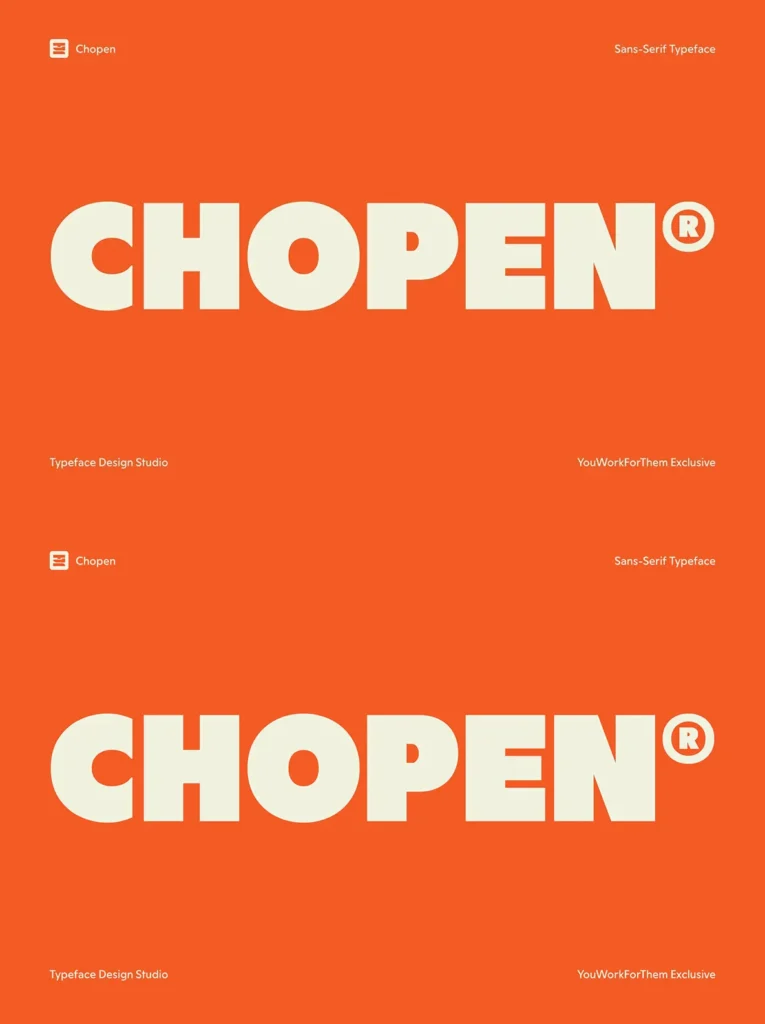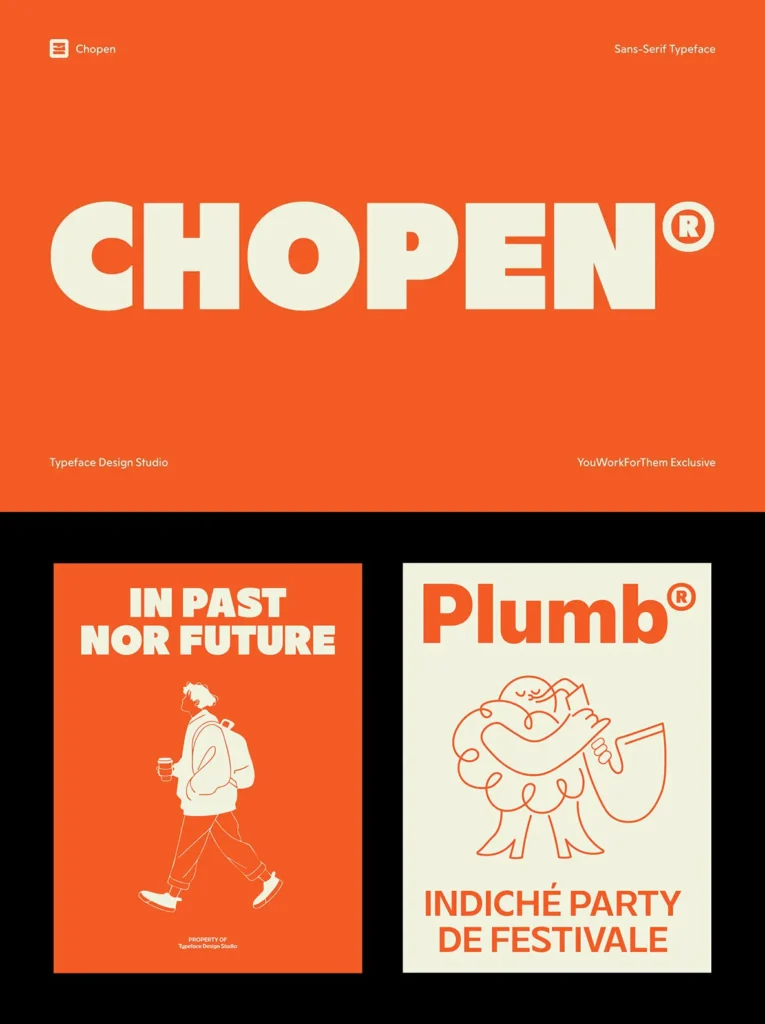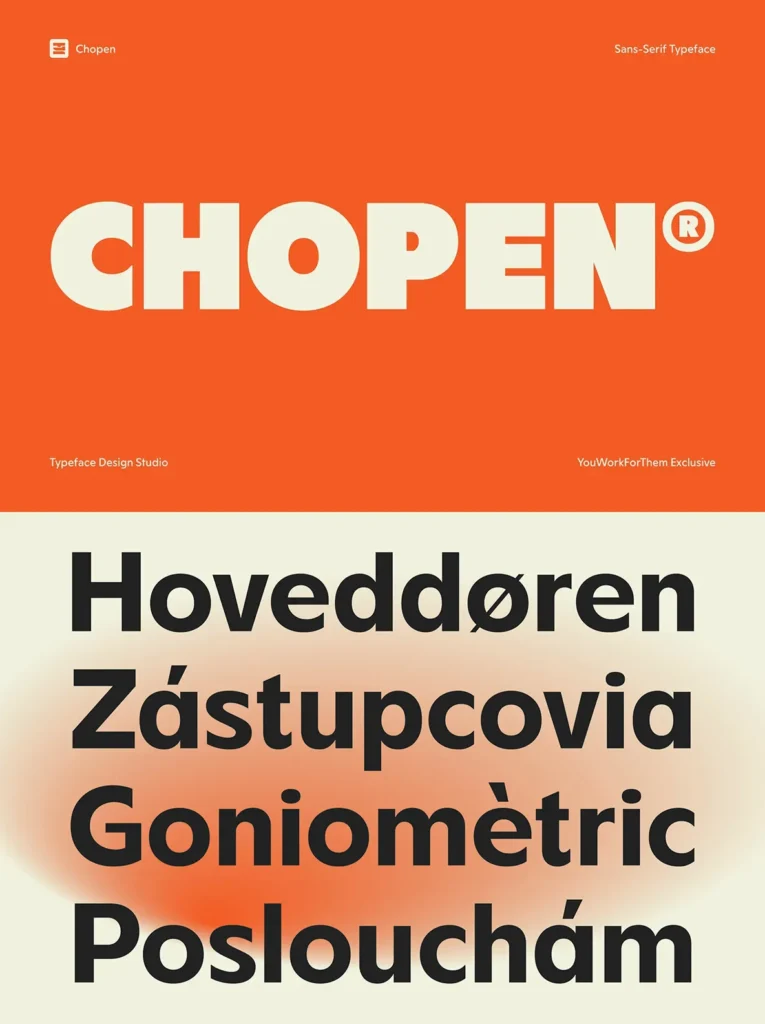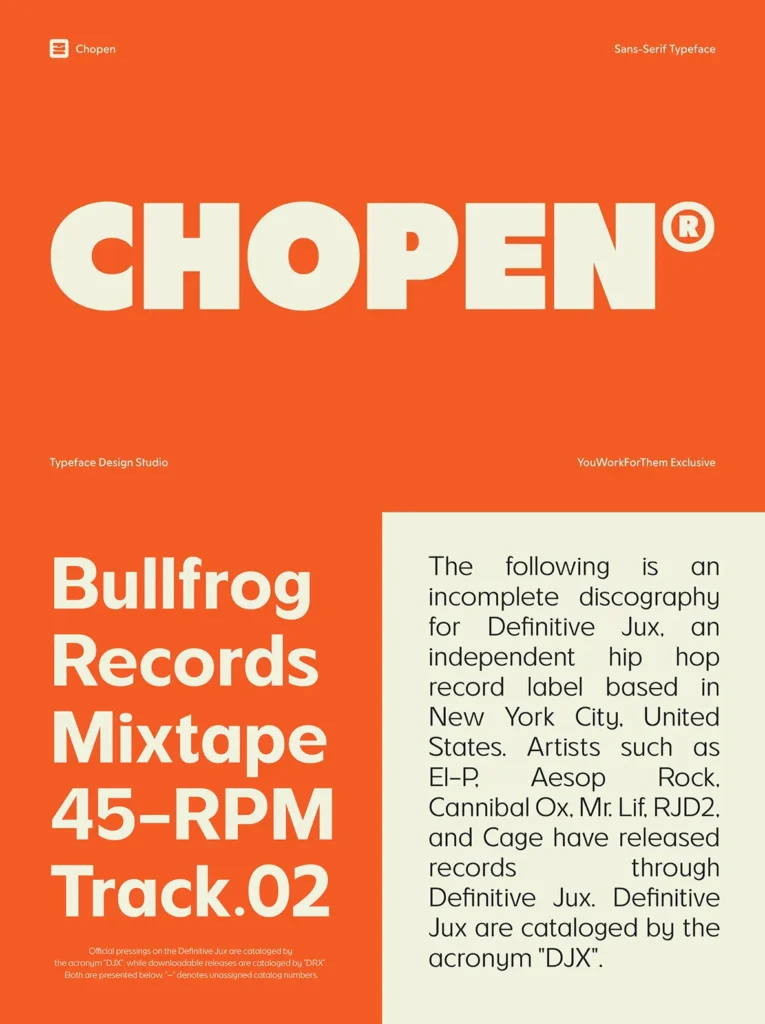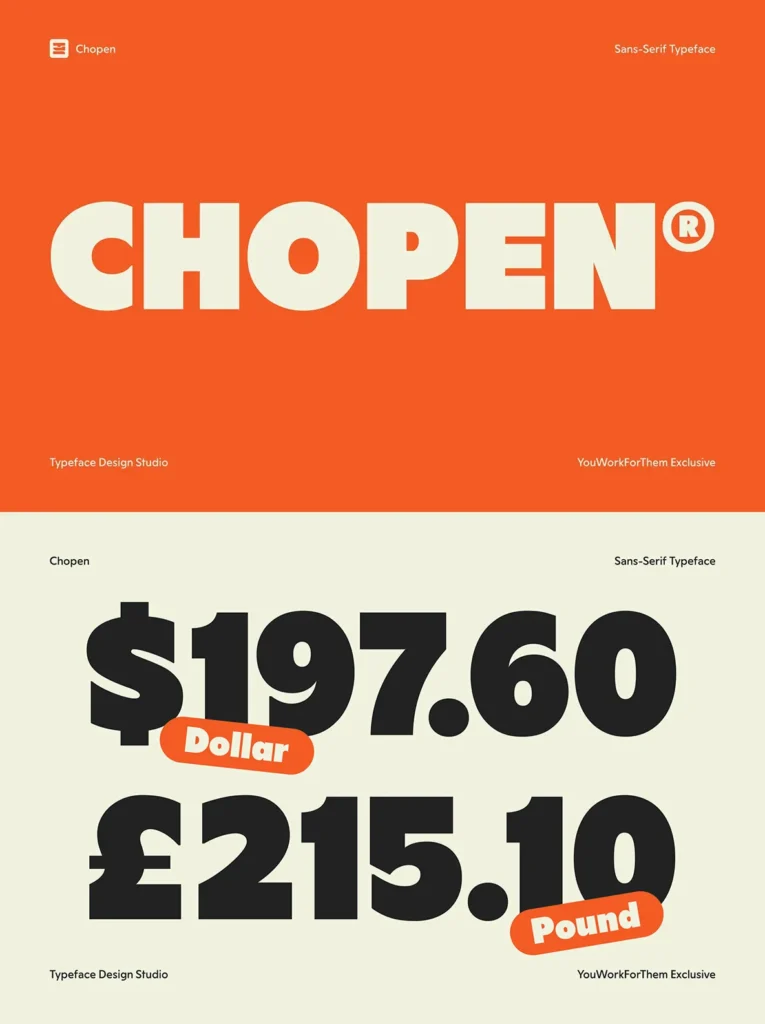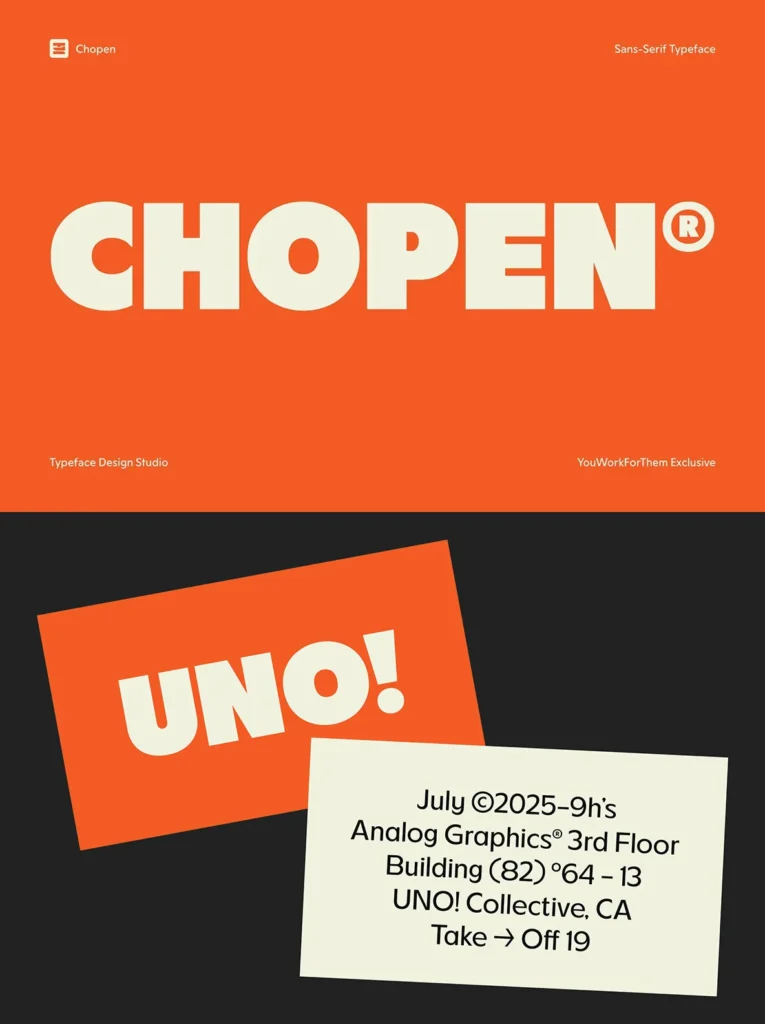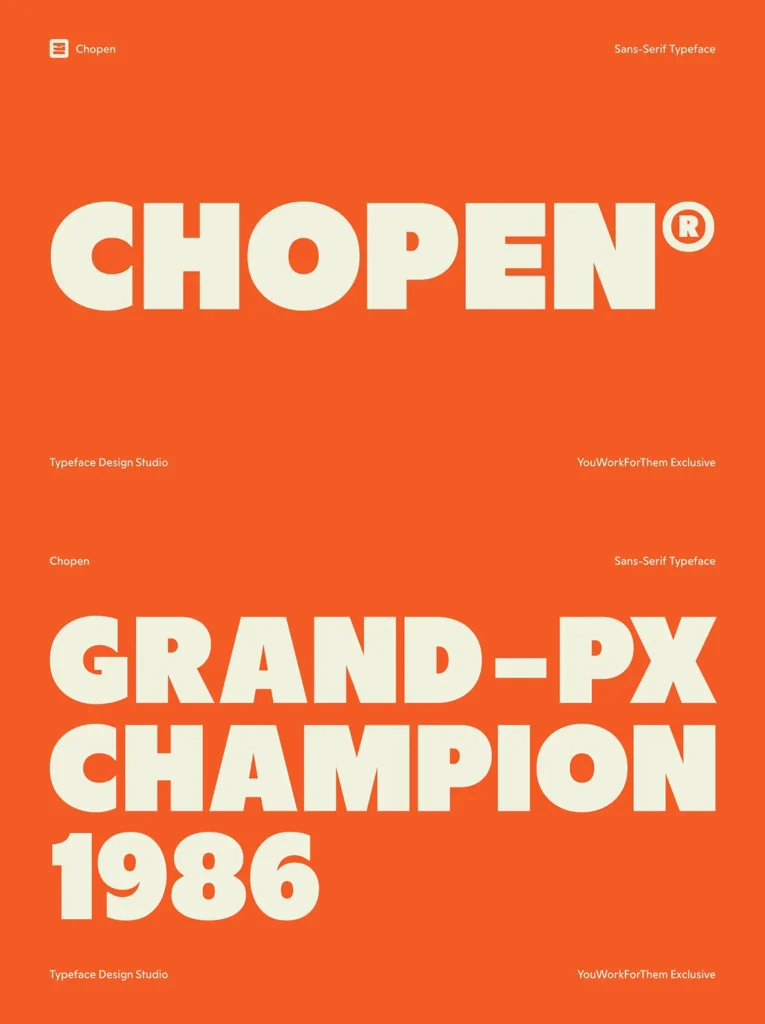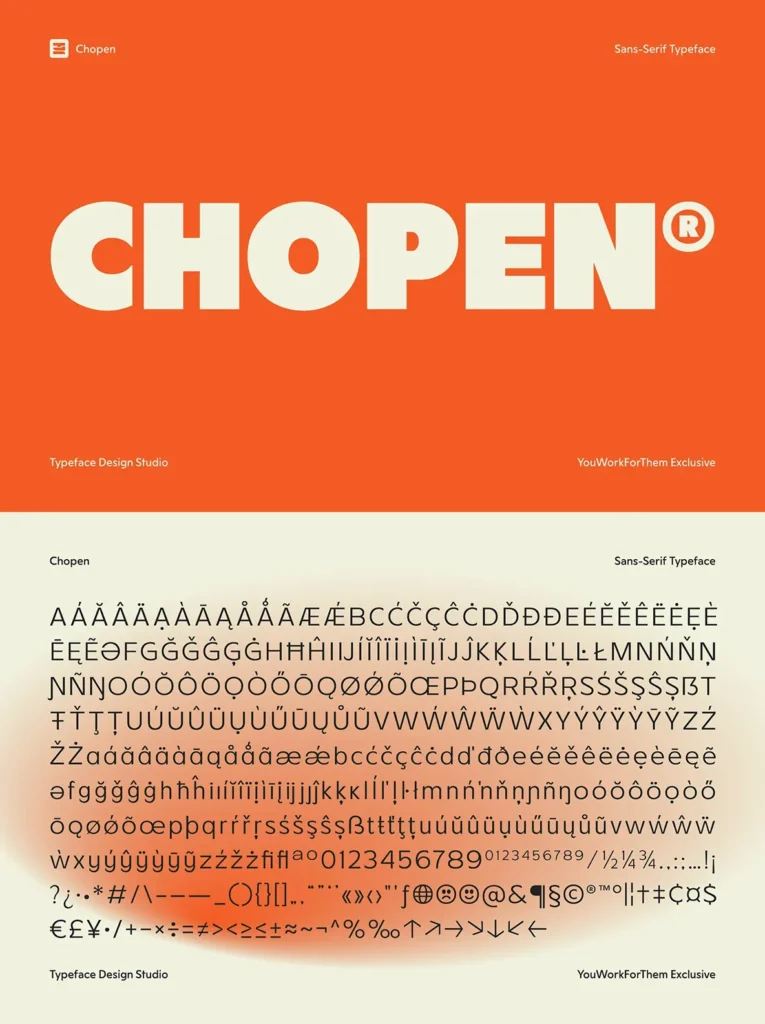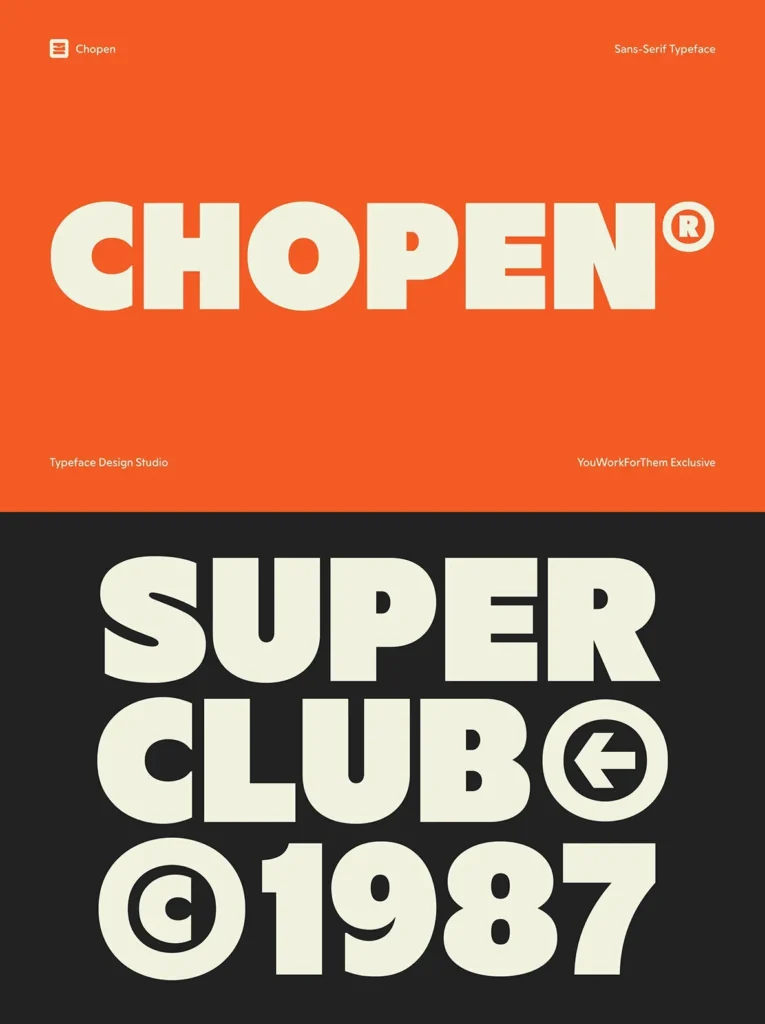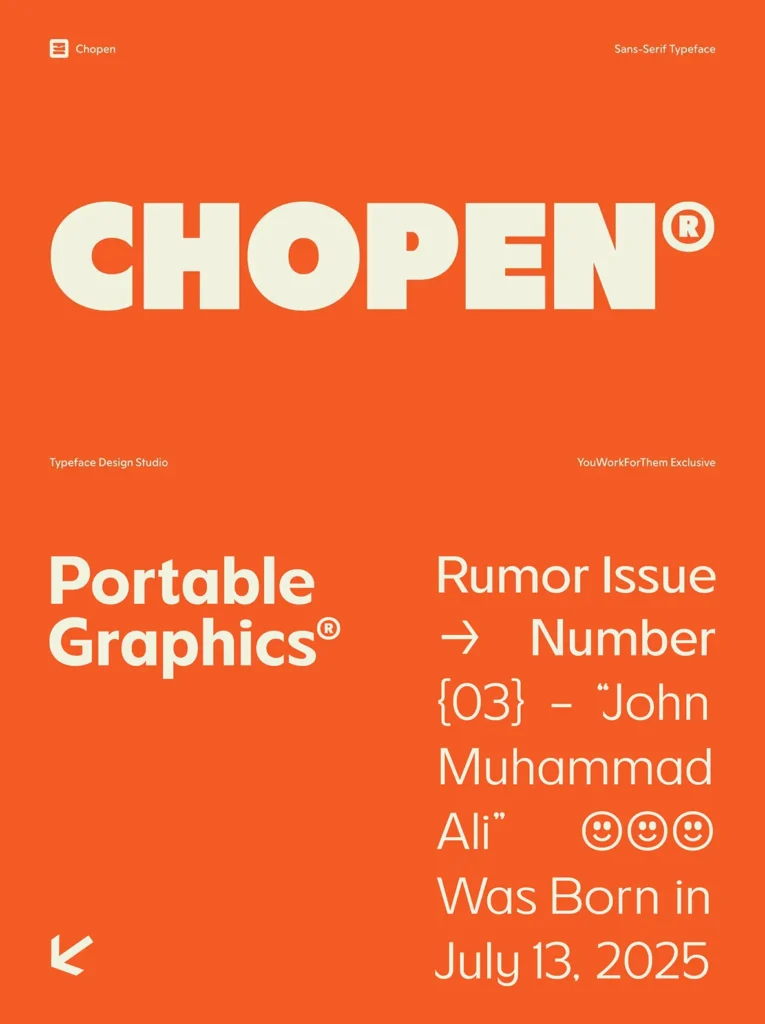
Chopen: Geometric Sans-Serif With Retro Influence
Chopen is a geometric sans-serif font that channels the distinctive visual rhythms of the 1980s but brings them forward with present-day minimalism. Balanced proportions and precise construction define its character, granting readability across digital and print environments. This typeface fits seamlessly into interface design, branding initiatives, and contemporary identity systems, where clarity and sophistication are vital.
With seven weights extending from light through black, Chopen adapts to a broad range of typographic needs. Its versatility ensures consistent visual tone, whether deployed in nuanced editorial layouts or bold headline treatments.
Features
OpenType options, including stylistic sets
Support for multiple languages
Over 430 glyphs in each weight
Chopen enables design work that balances both style and function, making it a practical foundation for graphic designers seeking geometric forms fused with modern usability.